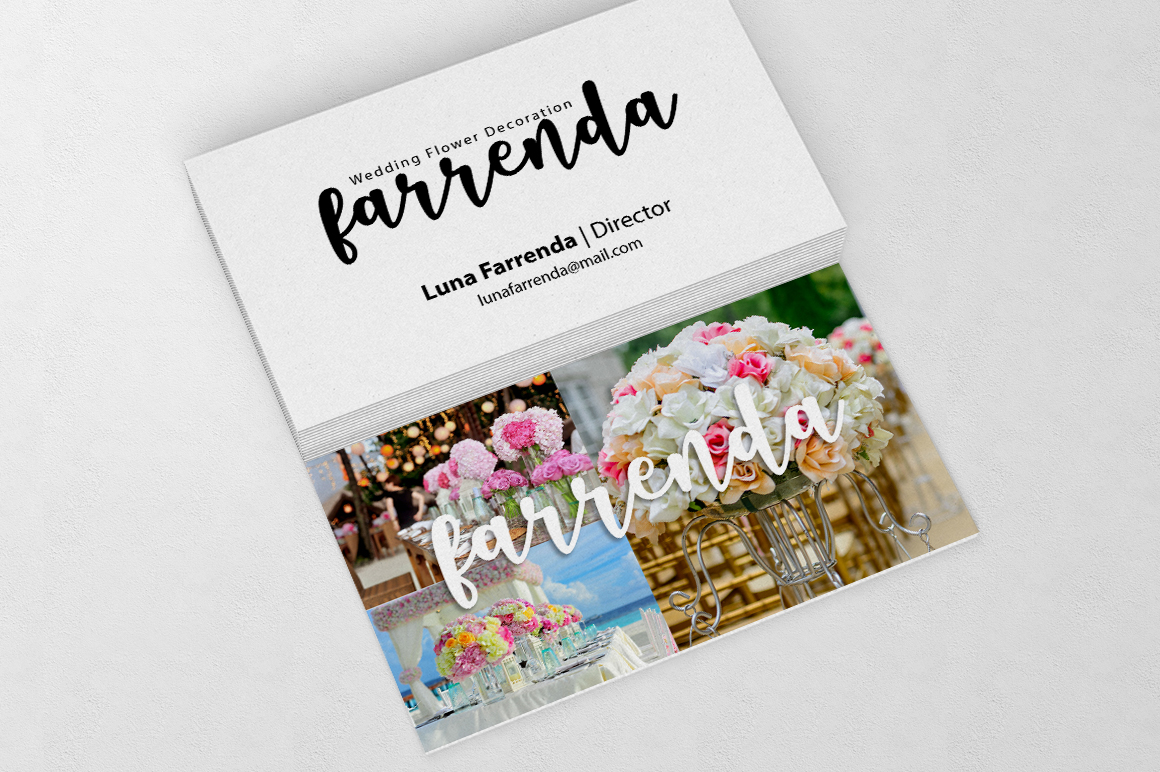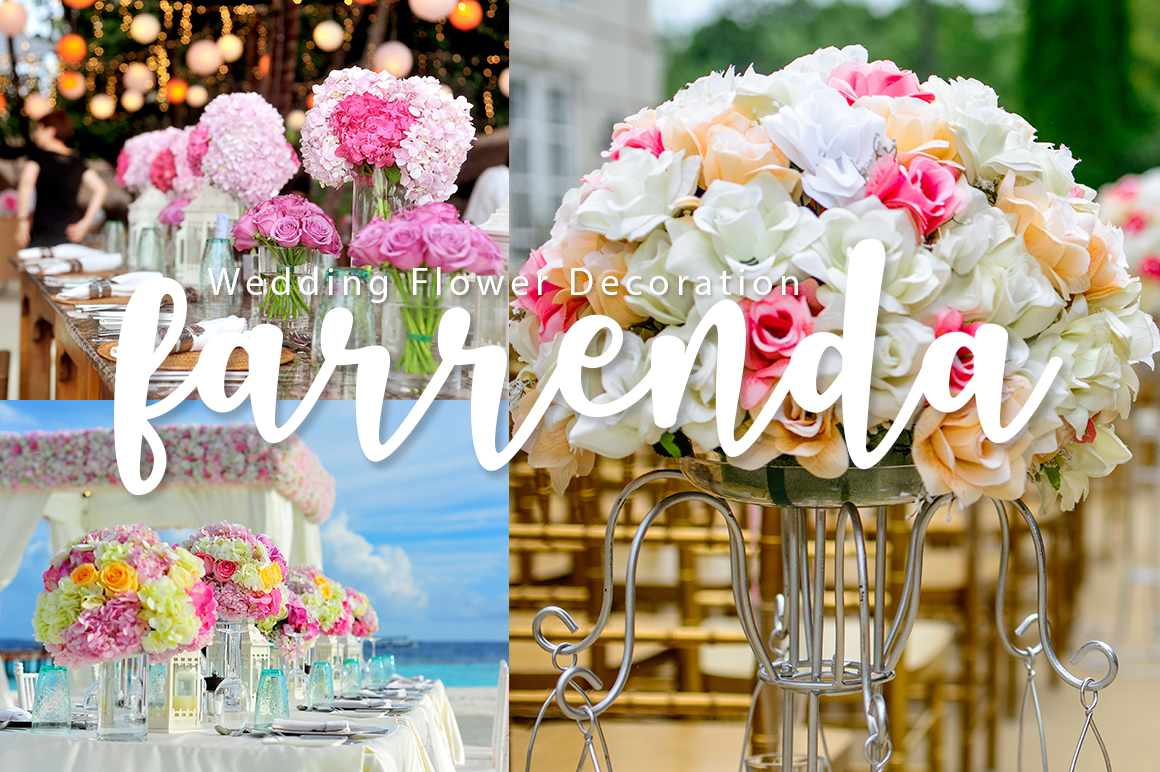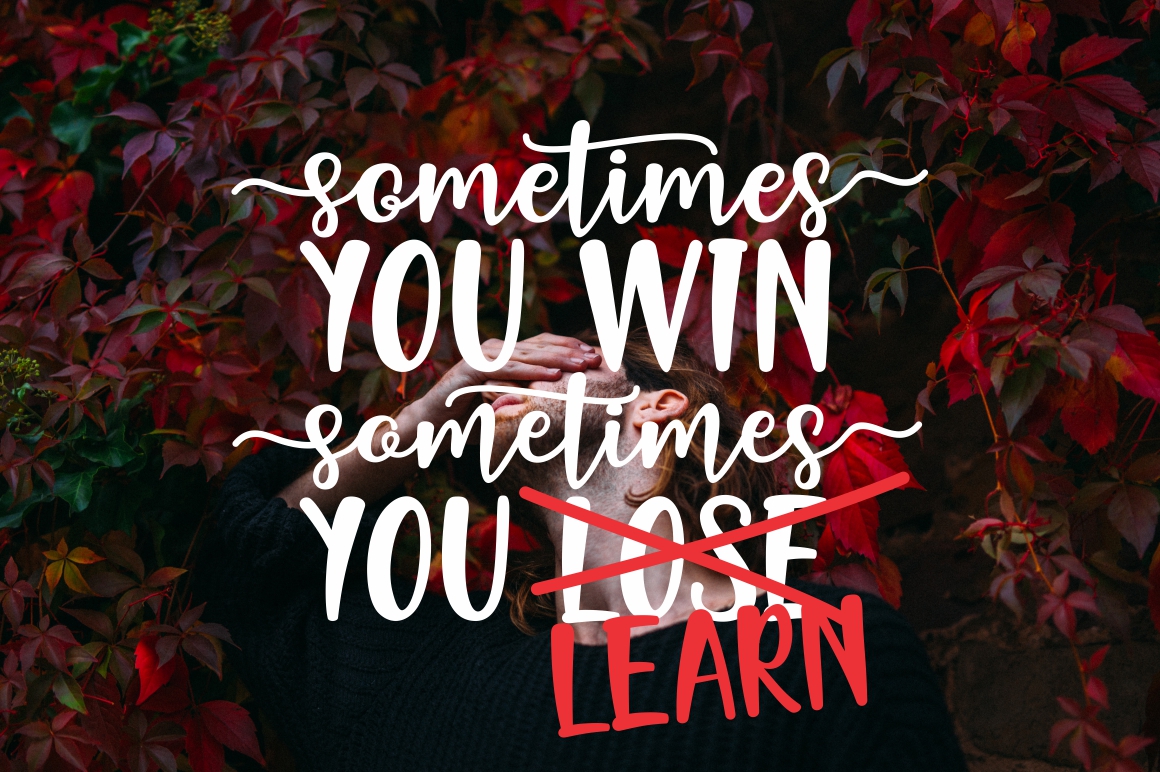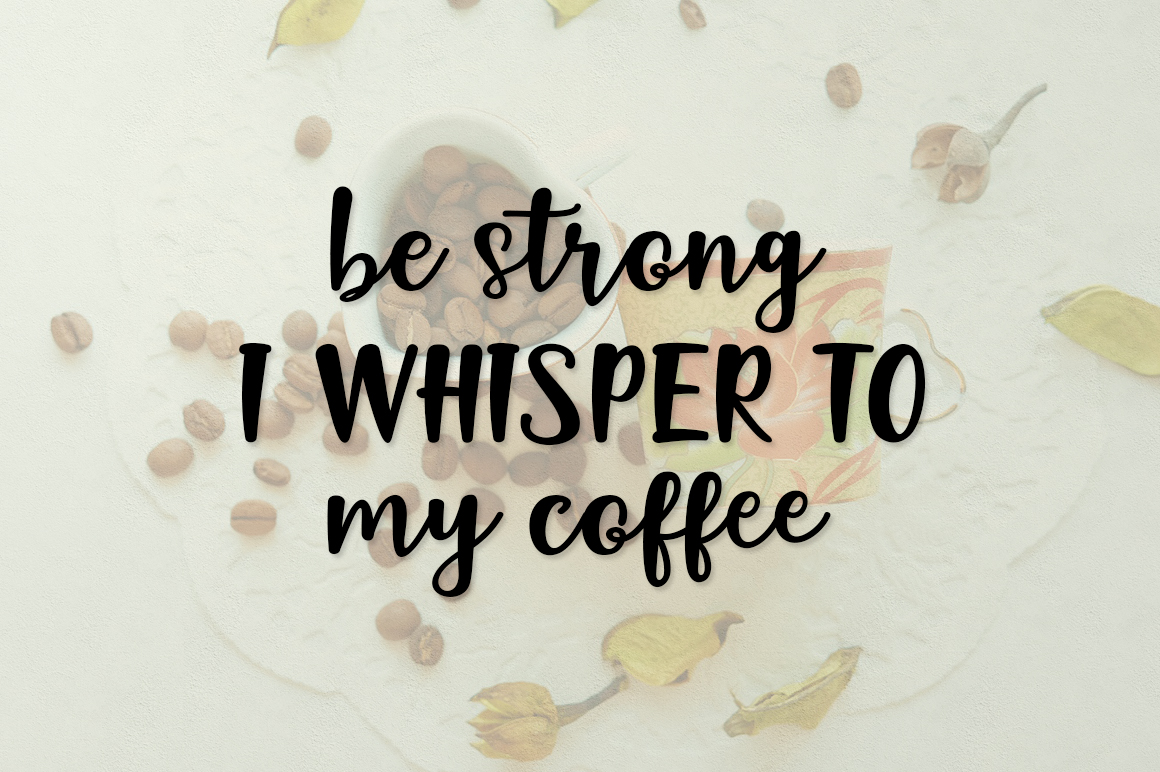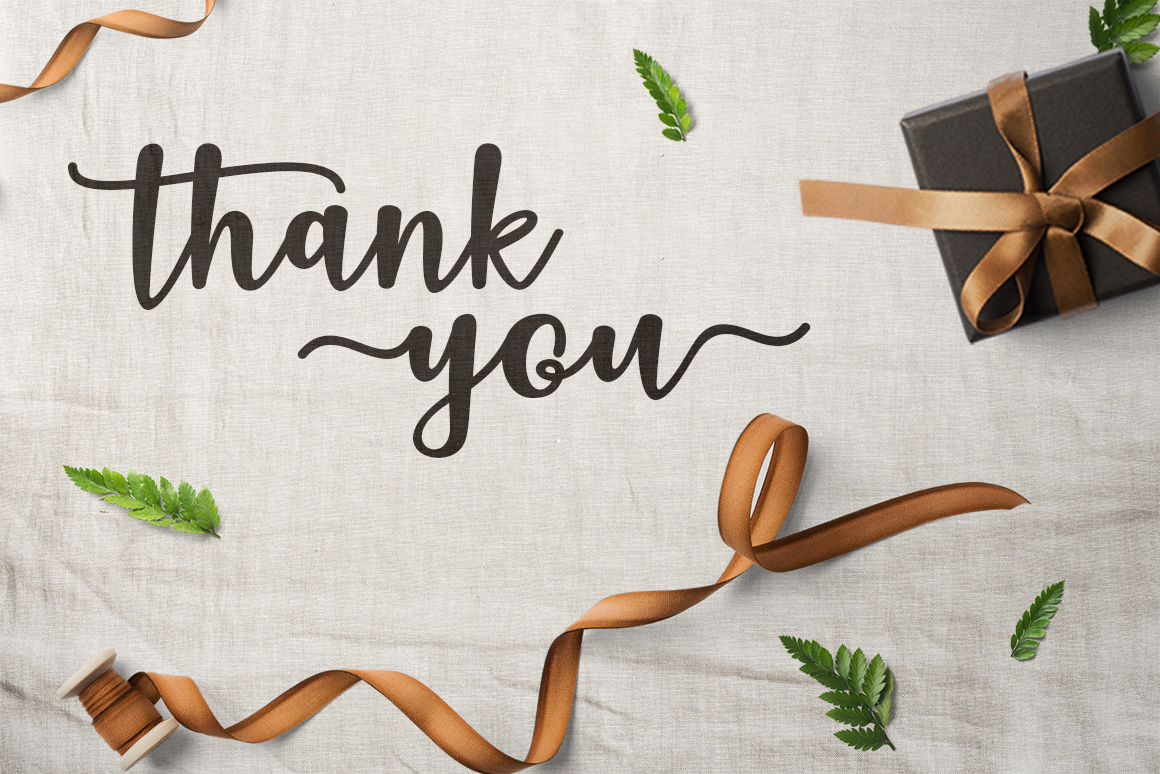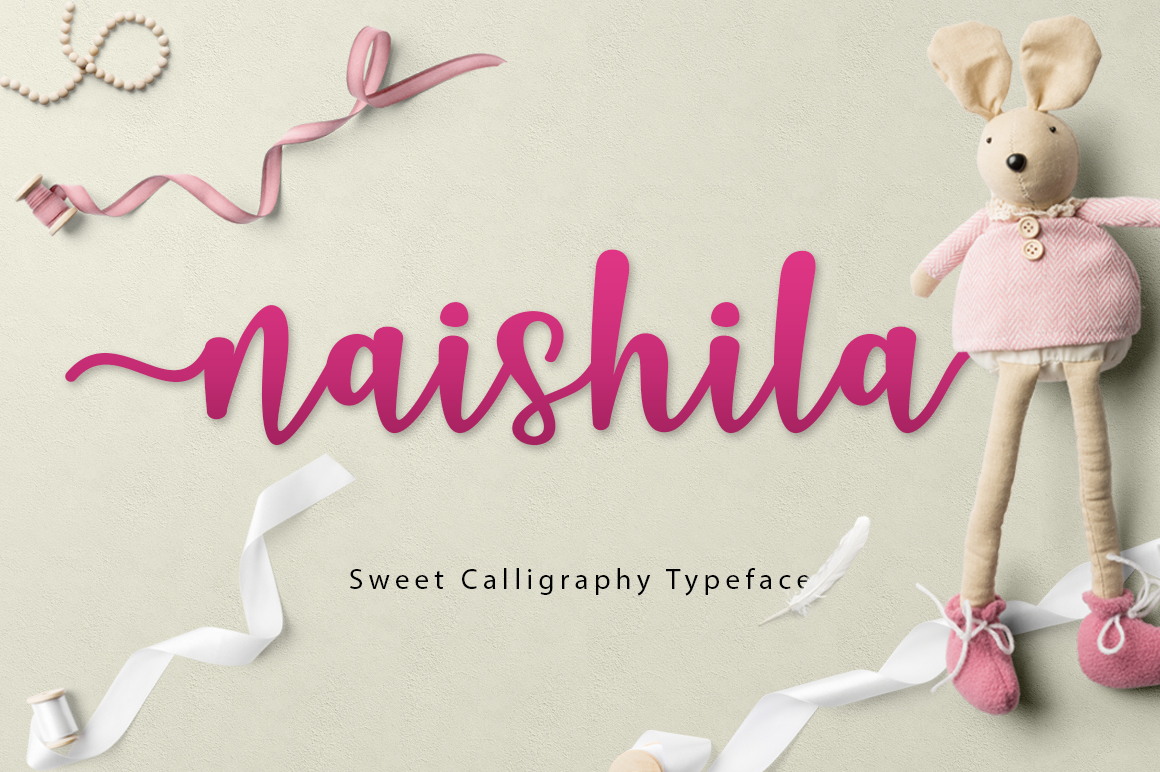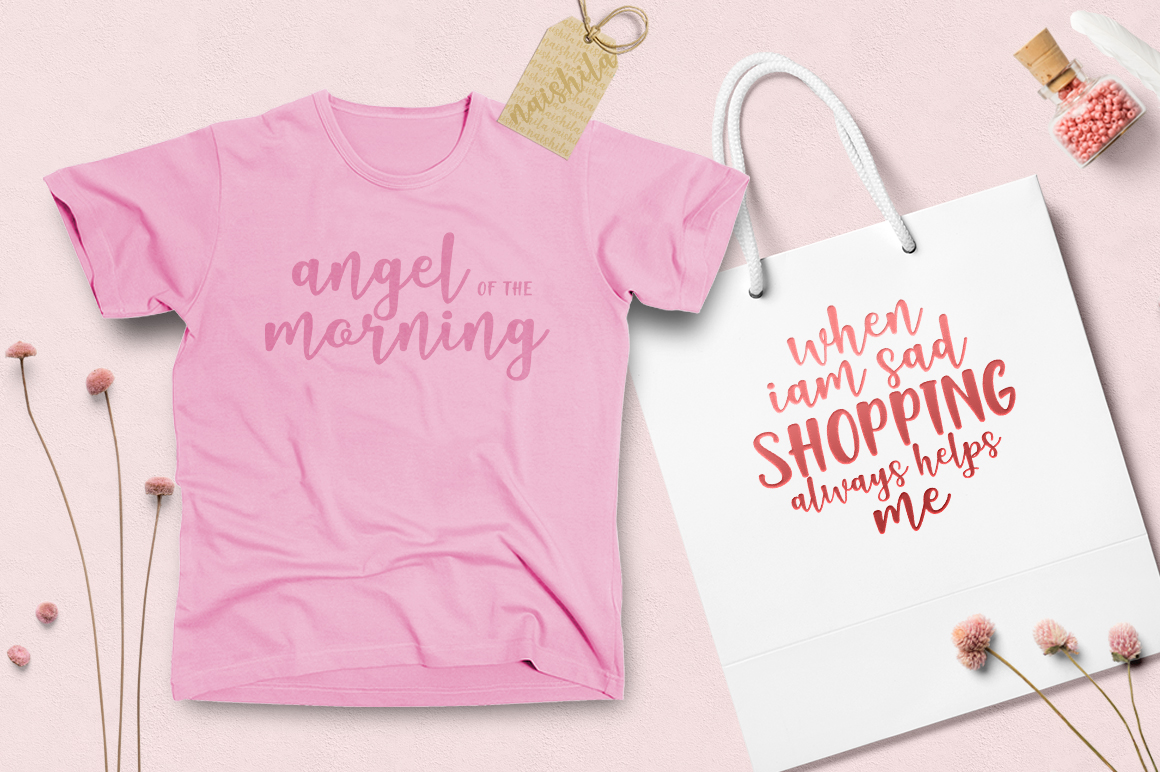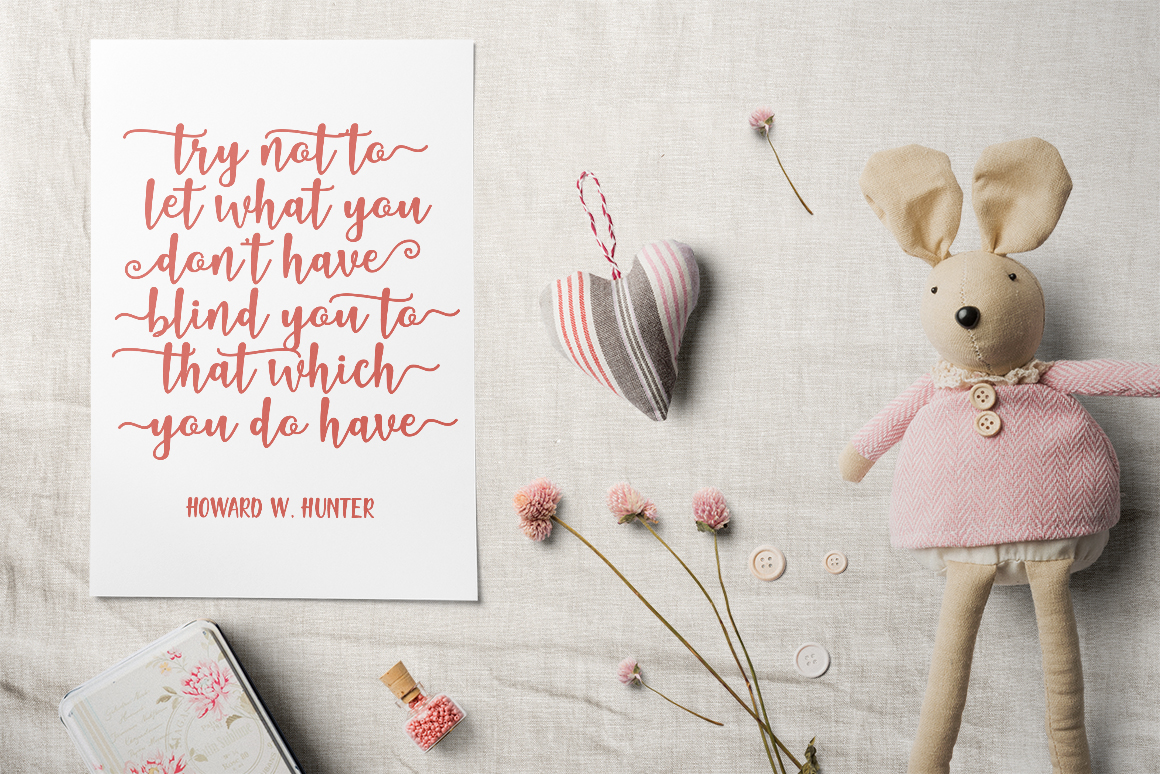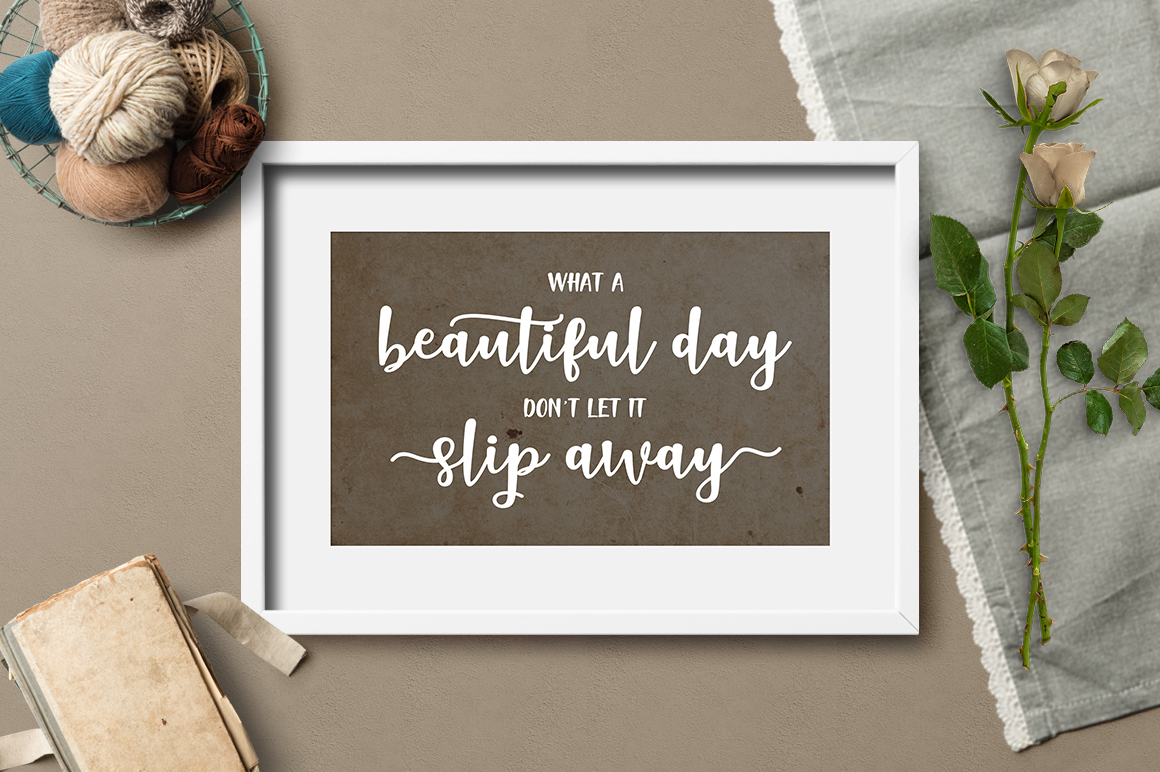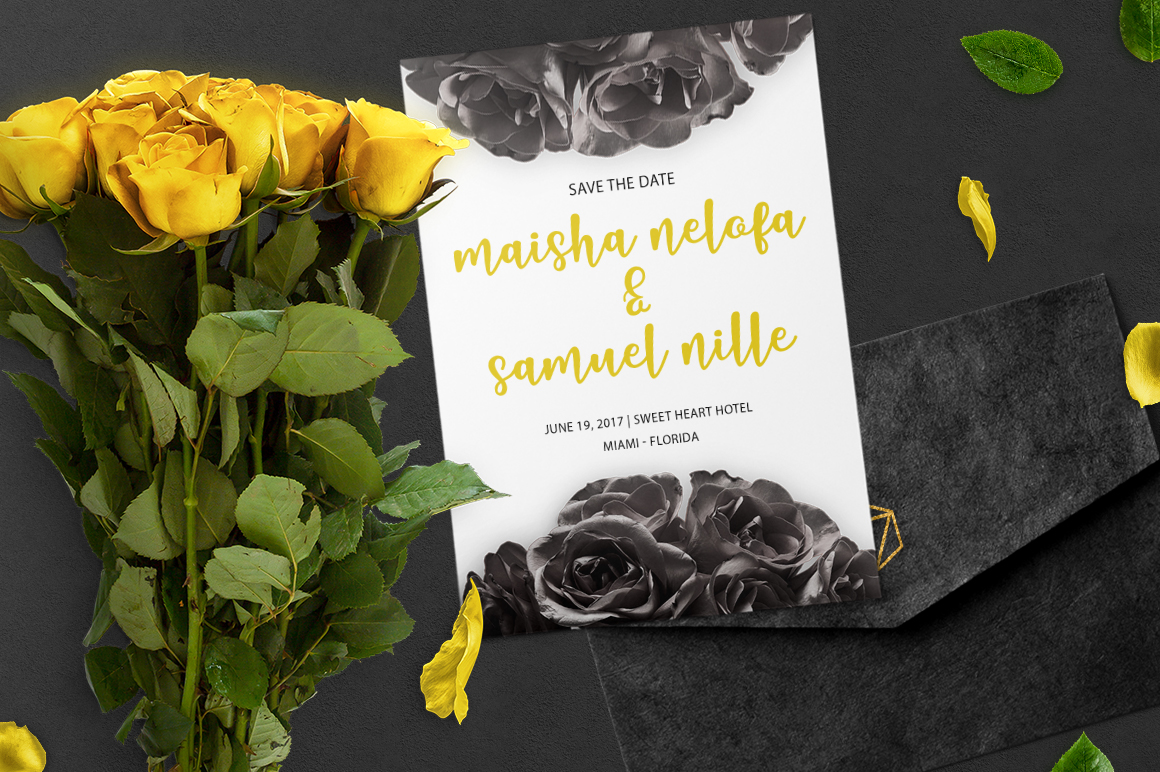
Naishila Script Font
About Naishila Script Font
Naishila is a handwritten multi-use font. You will get 3 compatible fonts:
Naishila Script
Naishilla Dancing Script
Naishilla Caps Regular
Both Naishila Script and Naishila Dancing Script come with a range of alternate PUA encoded characters with stunning swashes.